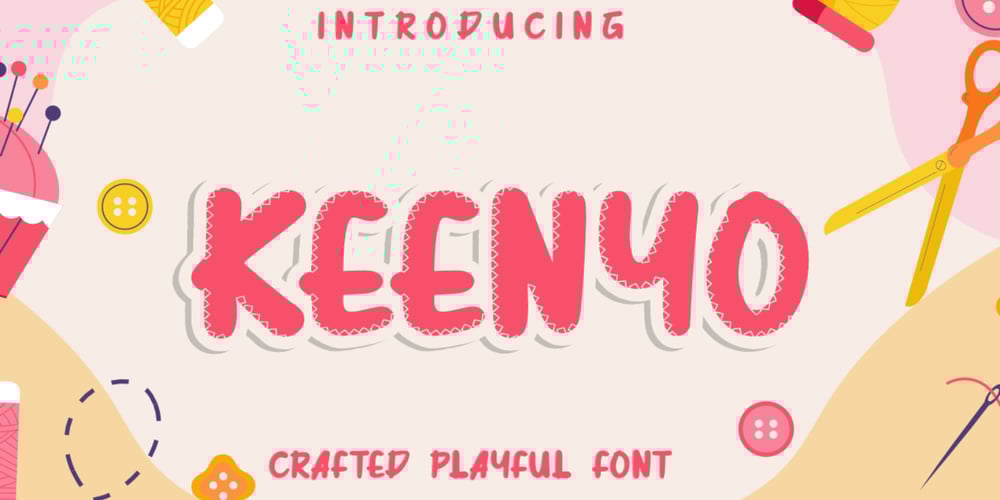
Keenyo Font Family was designed by Bayu Aji Fais Mursid and published by Bayuktx. Keenyo contains 1 styles and family package options. Keenyo Crafted Playful Font, This font is made with a high premium quality level which you can use as flyers, quotes, posters, banners, packaging, merchandise, logotypes and much more.FEATURES :* Uppercase* Lowercase* Number* Punctuation* Multilingual* PUA Encode* OpentypeFILES INCLUDED :* Keenyo. Thank you